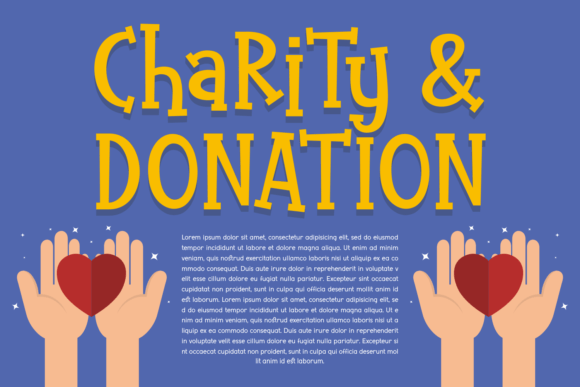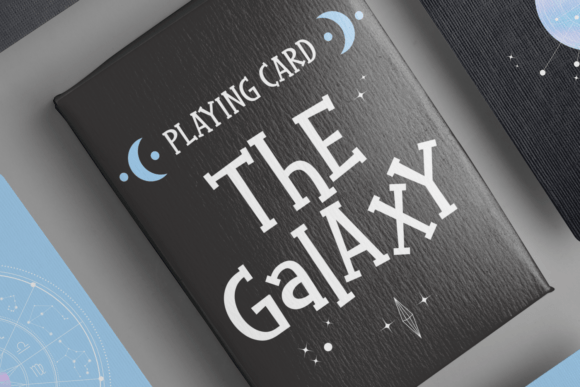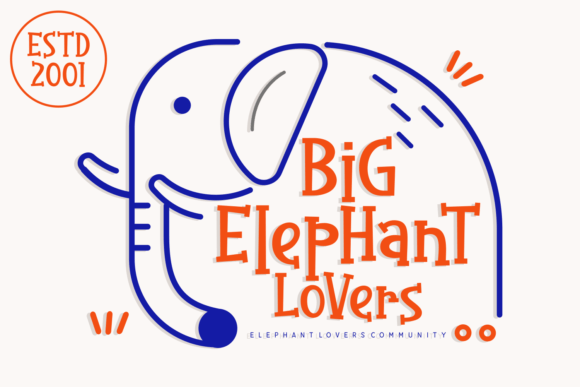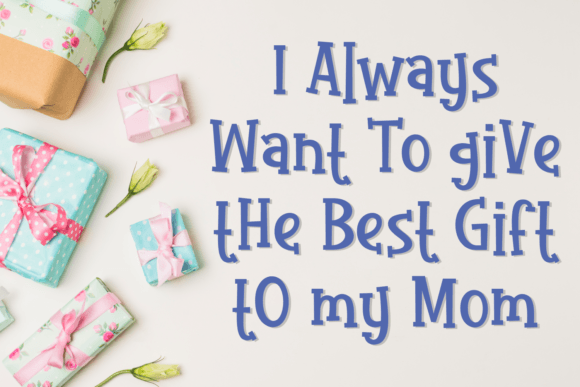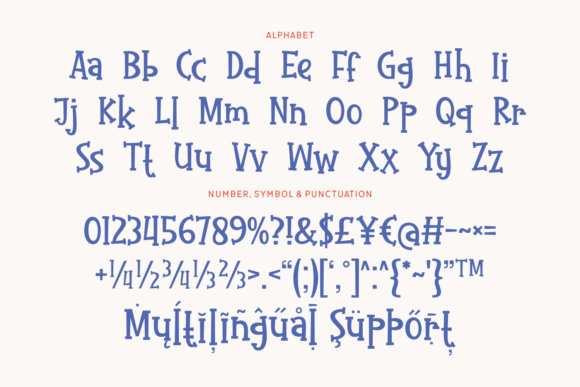
Unlock the Joy of Giving & Receiving Font
Do you remember the thrill of designing a birthday card for a loved one, only to see their face light up with delight when they see it? That’s the magic of creating something special for someone else. And what better way to capture that feeling than with a font that embodies the spirit of giving and receiving?
Enter the Giving & Receiving Font, a delightful slab serif font that’s perfect for bringing a smile to someone’s face. With its playful characters and refreshing vibe, this font is a designer’s dream come true. Whether you’re creating cards, posters, or digital designs, the Giving & Receiving Font is sure to add a touch of whimsy and personality to your work.
As a designer, you know that the right font can make all the difference in a project. And with the Giving & Receiving Font, you’ll have the perfect tool to convey your creative vision and bring joy to your clients and loved ones.
Giving & Receiving Font Key Features
- Unique Characteristics: Giving & Receiving Font features a distinctive, hand-drawn feel with intricate details and ornate flourishes, adding a touch of elegance and sophistication to any design.
Designer Review: Giving & Receiving Font
Overall, I have mixed feelings about the Giving & Receiving Font. There are some great features, but also some notable limitations.
- The font has a unique, hand-drawn feel that adds a touch of personality to any design project.
- The font is highly customizable, with a wide range of weights and styles to choose from.
- The font is optimized for digital use, making it perfect for websites, social media, and other online platforms.
- The font may not be suitable for formal or professional designs, as it has a somewhat informal feel.
- The font may not be as readable in smaller sizes, which could be a problem for certain design projects.
- The font is not available in as many languages as some other fonts, which could be a limitation for international designs.
Overall, I think the Giving & Receiving Font is a great choice for designers looking for a unique, customizable font for personal or creative projects. However, it may not be the best fit for more formal or professional designs.
The Giving & Receiving font is ideal for:
- Birth announcements and baby shower invitations.
- Gift cards and certificates.